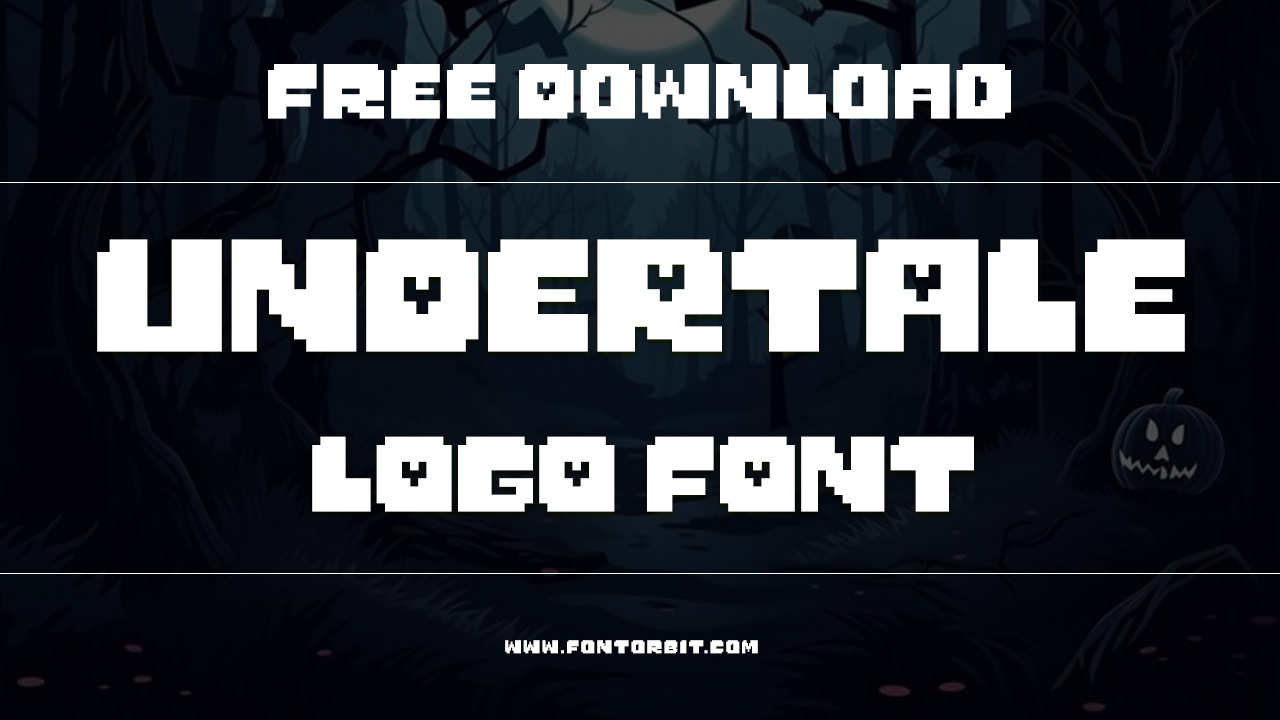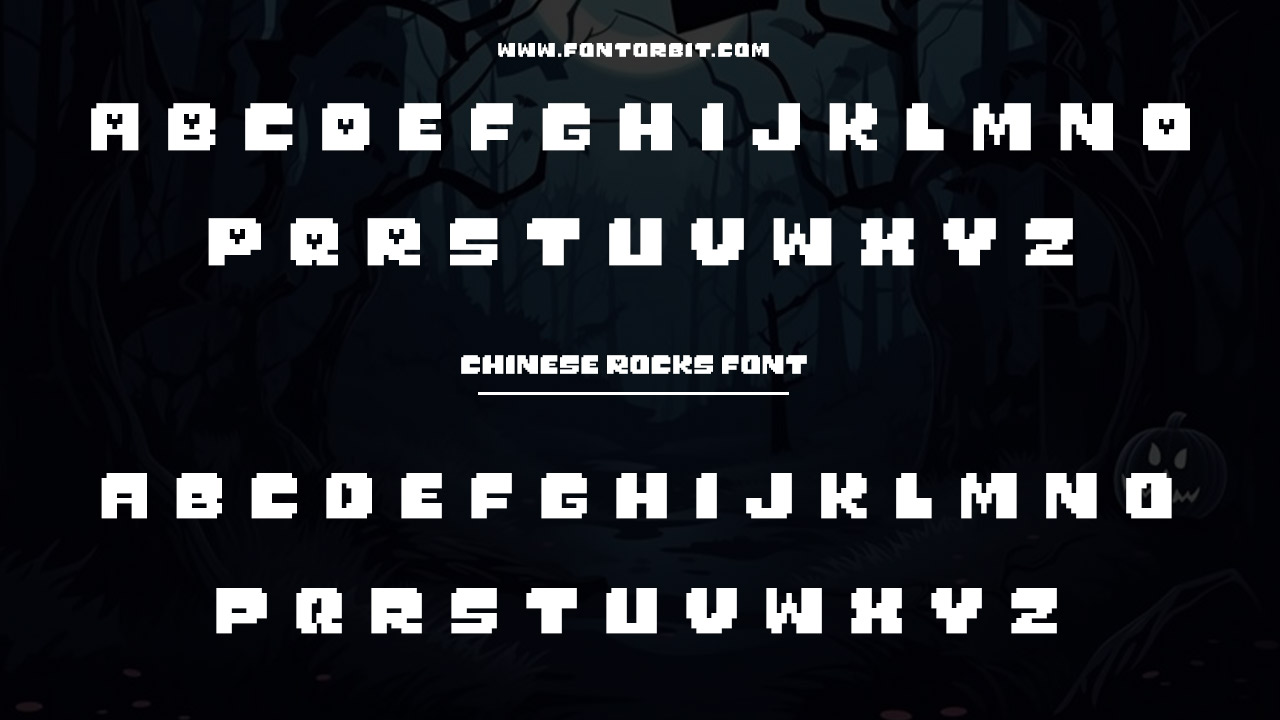
The Undertale Logo Font, also known as Monster Friend, is a fancy pixel font designed by Harry Wakamatsu, a talented Japanese typeface designer. The Undertale Logo Font is a unique pixelated typeface that gained immense popularity through the hit indie video game Undertale, released by Toby Fox on September 15, 2015.
Designed to emulate a retro gaming aesthetic, this font has become synonymous with video game logos and design projects. It’s versatile and perfect for fans or designers looking to add a nostalgic gaming touch to their creations.
Type Of The Undertale Logo Font (Font Family)
It comes in two complementary styles to help replicate the iconic Undertale logo:
- Monster Friend Fore: The main text layer.
- Monster Friend Back: A shadow layer for added depth and detail.
Using Occasions Of The Undertale Logo Font
The Undertale Logo Font is ideal for projects inspired by gaming culture and retro design. Common applications include:
1. Video Games:
- Best suited for logos, titles, and in-game graphics.
2. Logos:
- Perfect for branding gaming-related projects, apps, or merchandise.
3. Printing Projects:
- Excellent for posters, banners, or event stationery.
4. Web Design:
- Enhances gaming websites or retro-themed digital platforms.
5. T-Shirts and Merchandise:
- Ideal for creating apparel designs with nostalgic appeal.
Undertale Logo Font In Use
The font’s pixelated style and nostalgic vibe make it a go-to choice for gaming enthusiasts and designers. Beyond Undertale, it’s been widely adopted for retro-inspired design projects. Its clear and bold appearance ensures legibility while adding charm to any creative output.
The Undertale Logo Font is a standout typeface that combines nostalgia, charm, and versatility. Its layered design makes it easy to create stunning logos and graphics that capture the retro gaming vibe. Whether you’re designing for video games, merchandise, or personal projects, this font is a fantastic choice.
1.What Is The Undertale Logo Font?
The Undertale Logo Font is a pixelated typeface prominently featured in the logo of the hit indie game Undertale. Known as the Monster Friend Font, Harry Wakamatsu designed it and consists of two layers: Monster Friend Fore (primary) and Monster Friend Back (shadow layer). This gaming typeface is celebrated for its retro charm and nostalgic appeal, making it a favorite among fans and designers. It is part of the Undertale Logo Font Family.
3.What Are The Key Features Of The Undertale Logo Font?
The Undertale Logo Font is a pixel font known for its:
- Layering Options: Combine Monster Friend Fore and Monster Friend Back for a perfect Undertale logo.
- Wide Usage: Suitable for game logos, banners, merchandise, and different Undertale logo designs.
4.Where Can I Use The Undertale Logo Font?
The Undertale Logo Font is ideal for:
- Gaming Projects: Creating unique game logos or in-game text.
- Logos: Designing standout logos for websites or merchandise.
- Printing: Perfect for posters, banners, or event stationery.
- Digital Platforms: Use it for websites or apps featuring a retro or gaming aesthetic. Its bold and pixelated look is reminiscent of similar fonts like Biker Font or other related fonts with a unique style.
6.What Is The Undertale Font Generator?
The Undertale Font Generator is a free online tool that helps users create text and logos styled like the Undertale logo. It requires no download and supports different Undertale logo designs, offering users the flexibility to customize text with a pixelated font style. This tool is perfect for fans and designers who want to replicate the perfect Undertale logo without technical expertise.